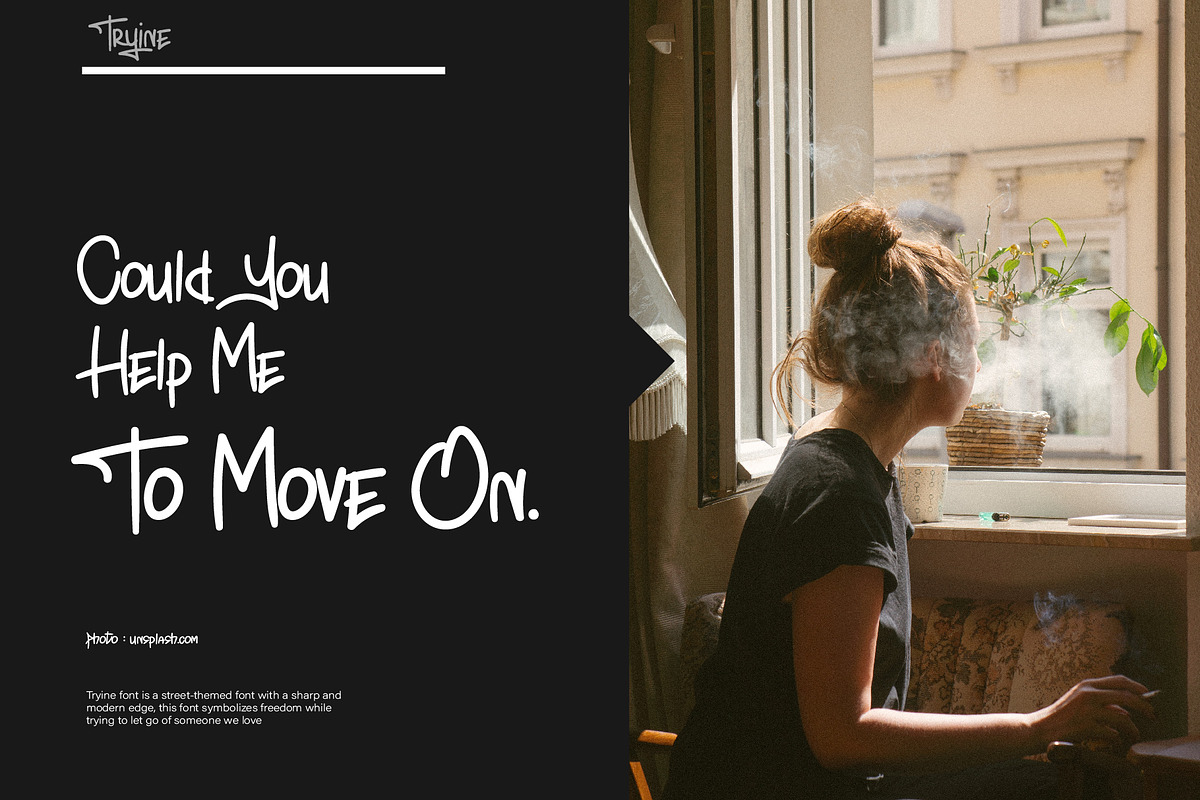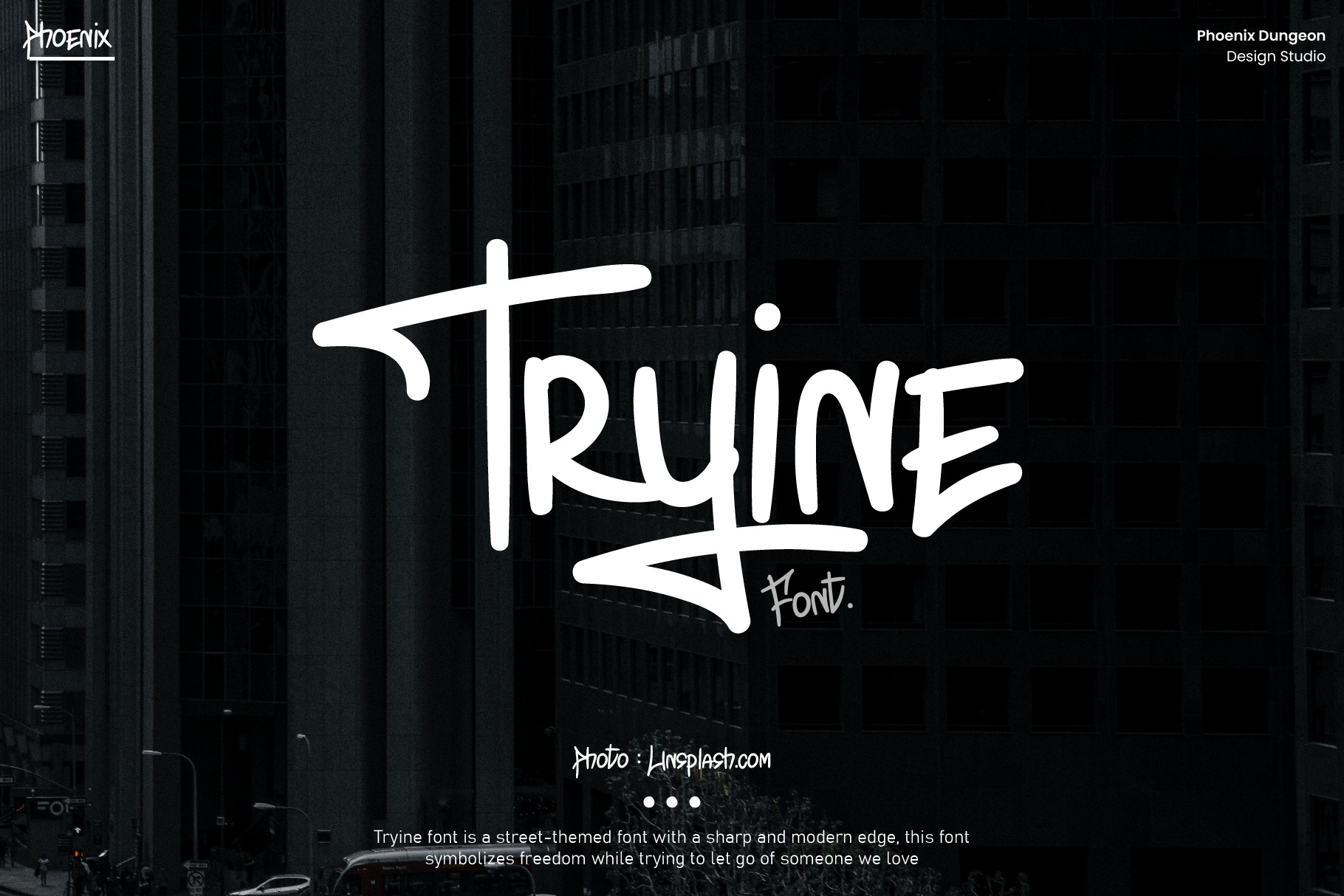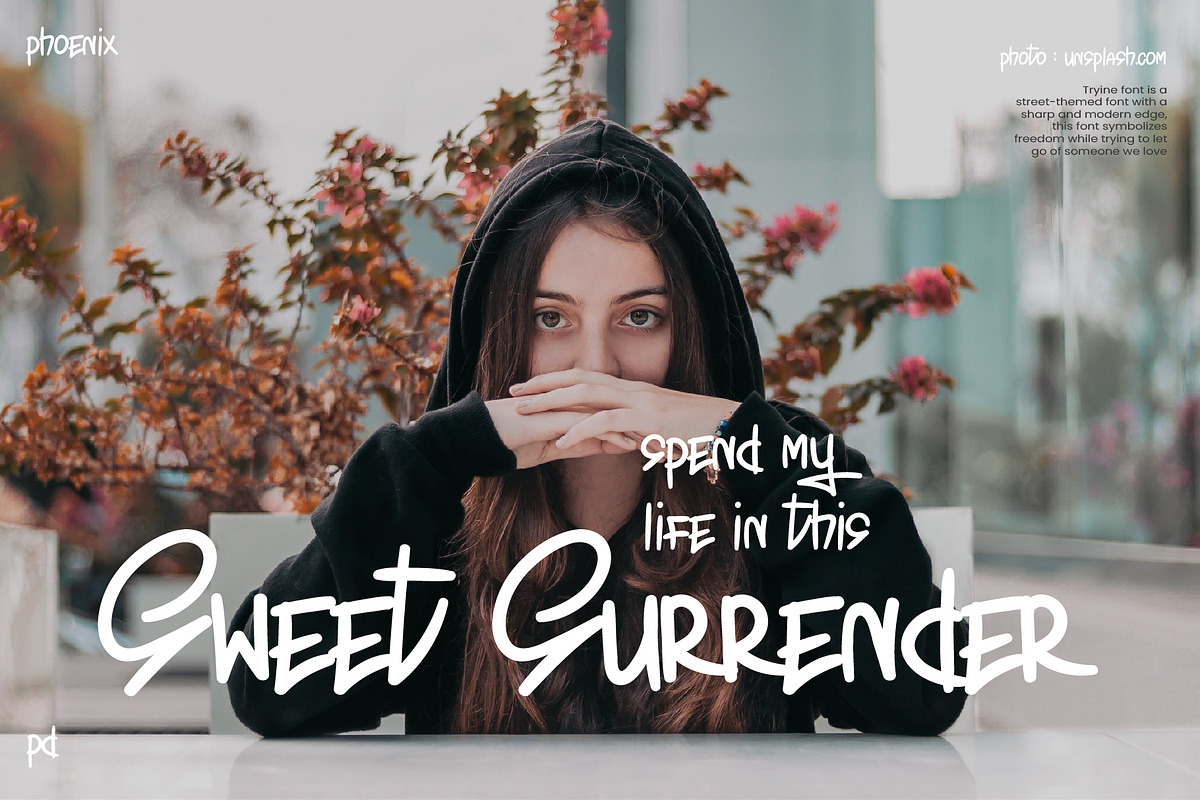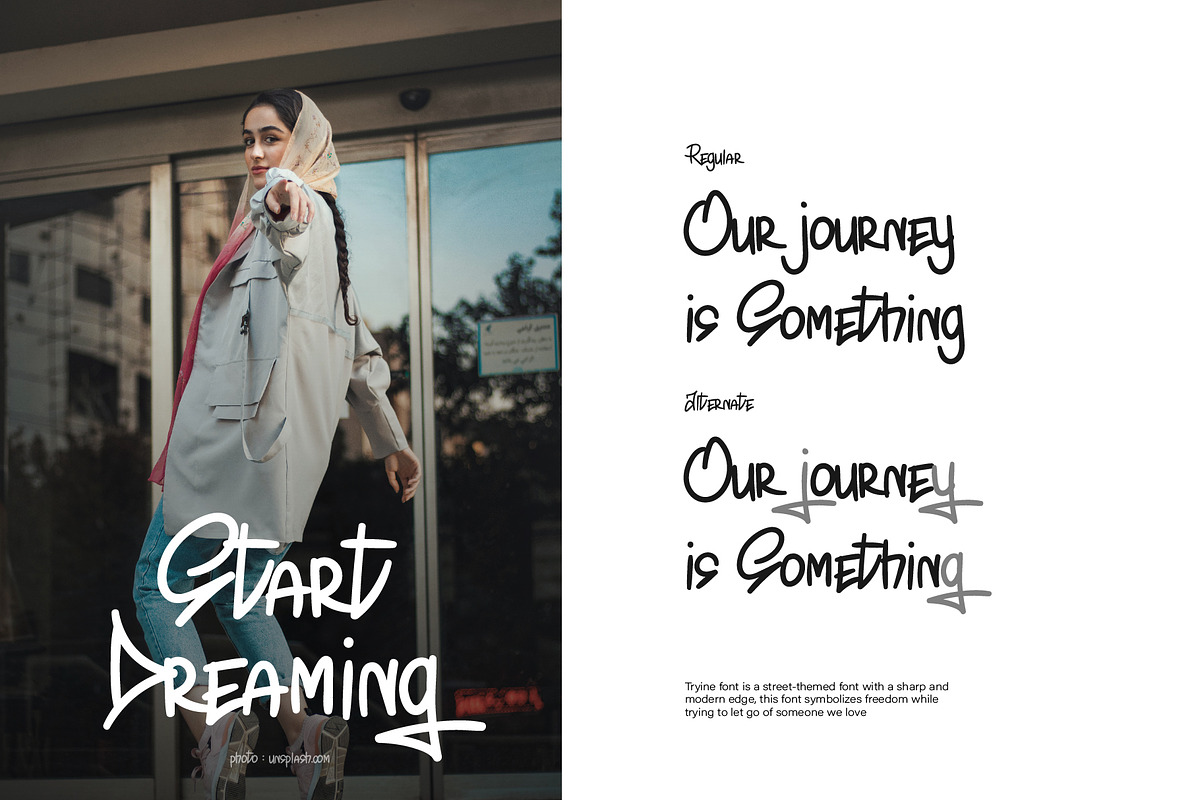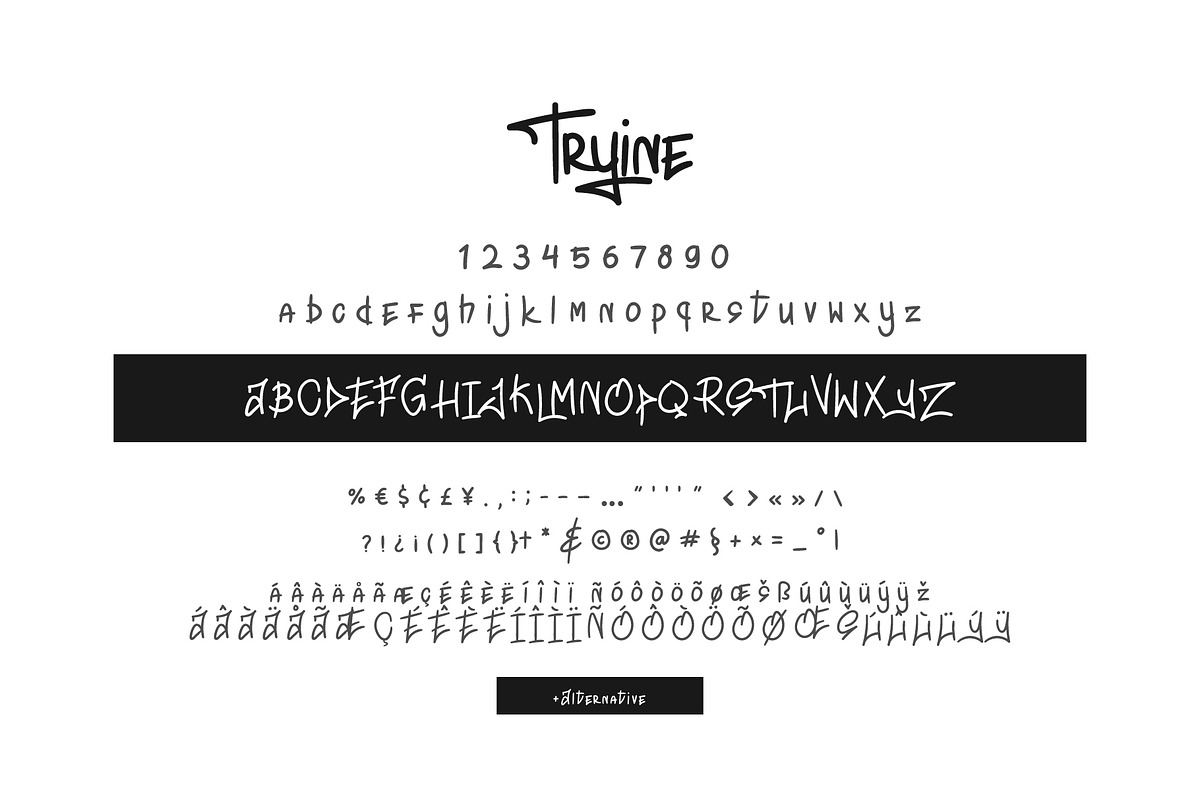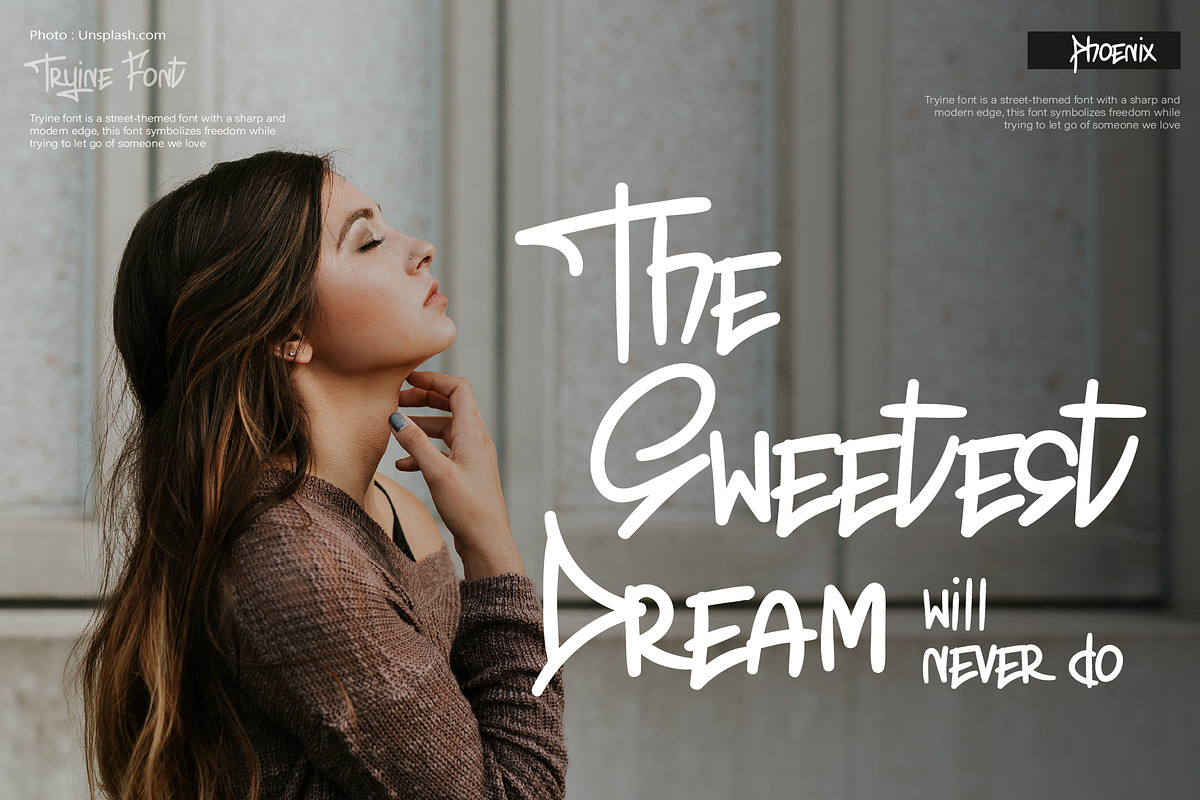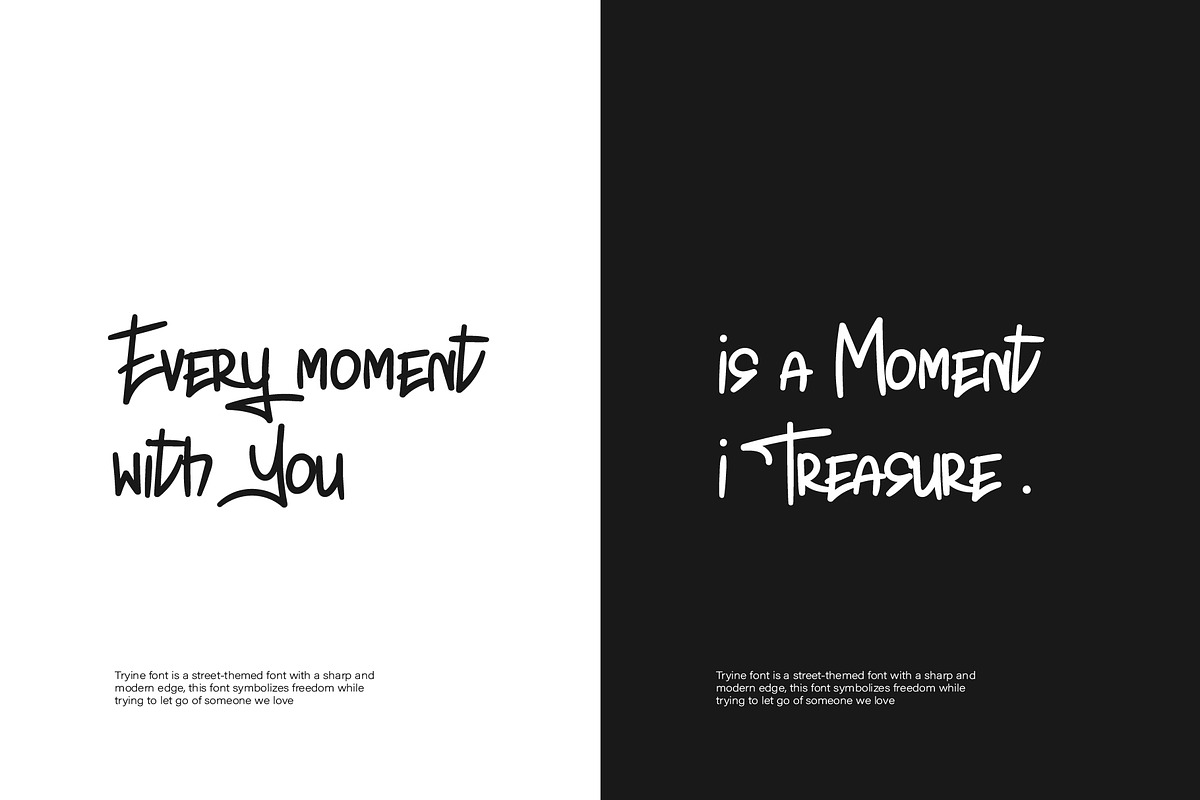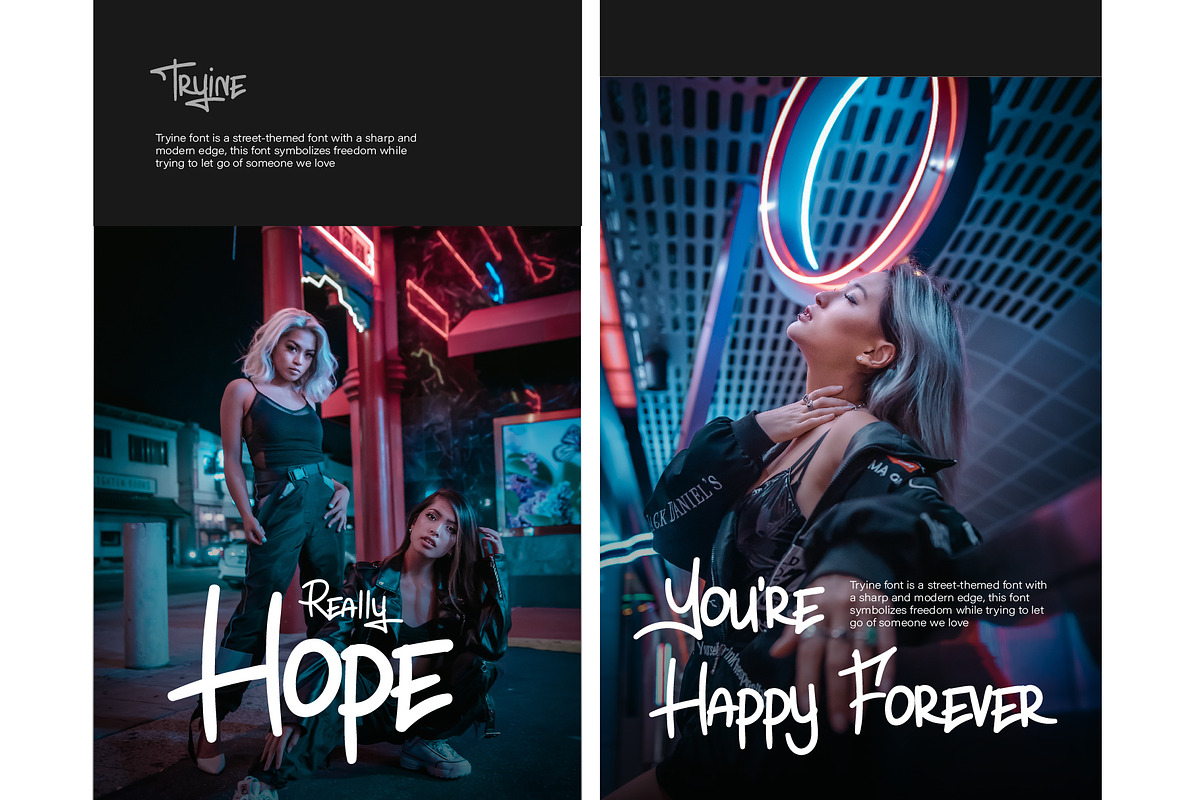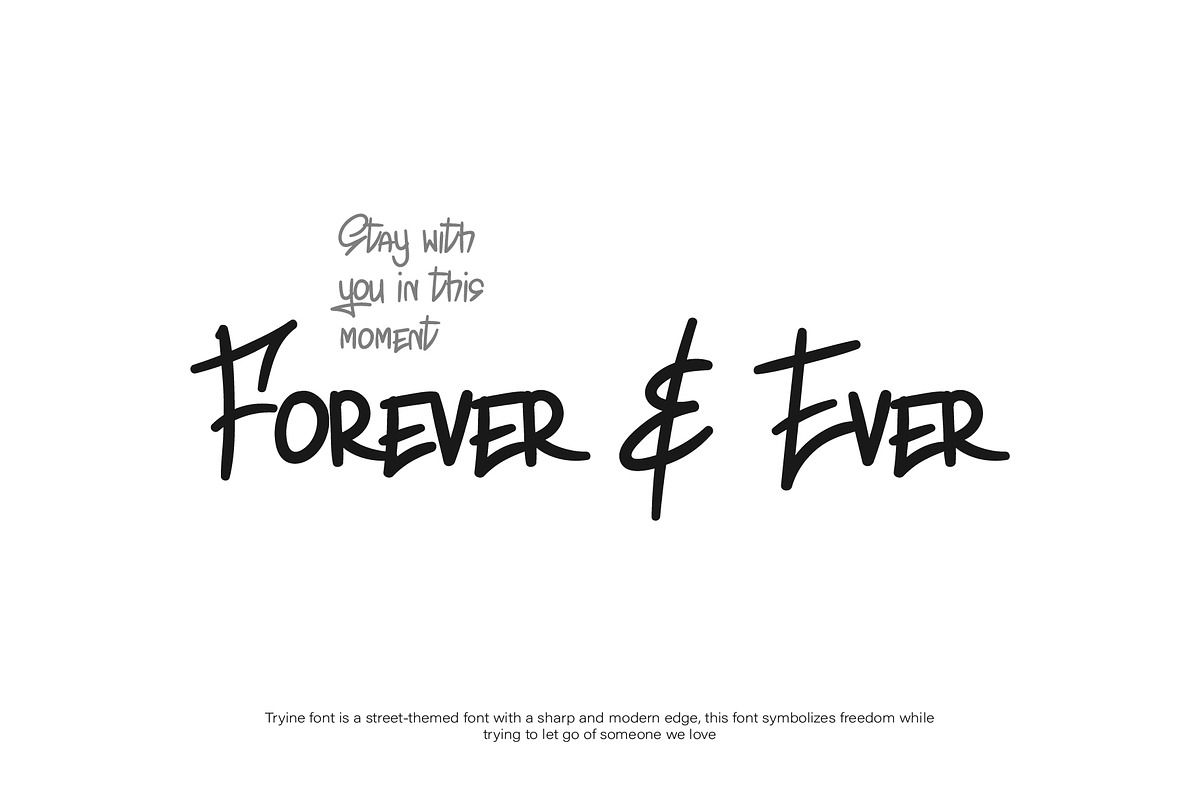
Tryine Font
Tryine font is a street-themed font with a sharp and modern edge, this font symbolizes freedom while trying to let go of someone we love.